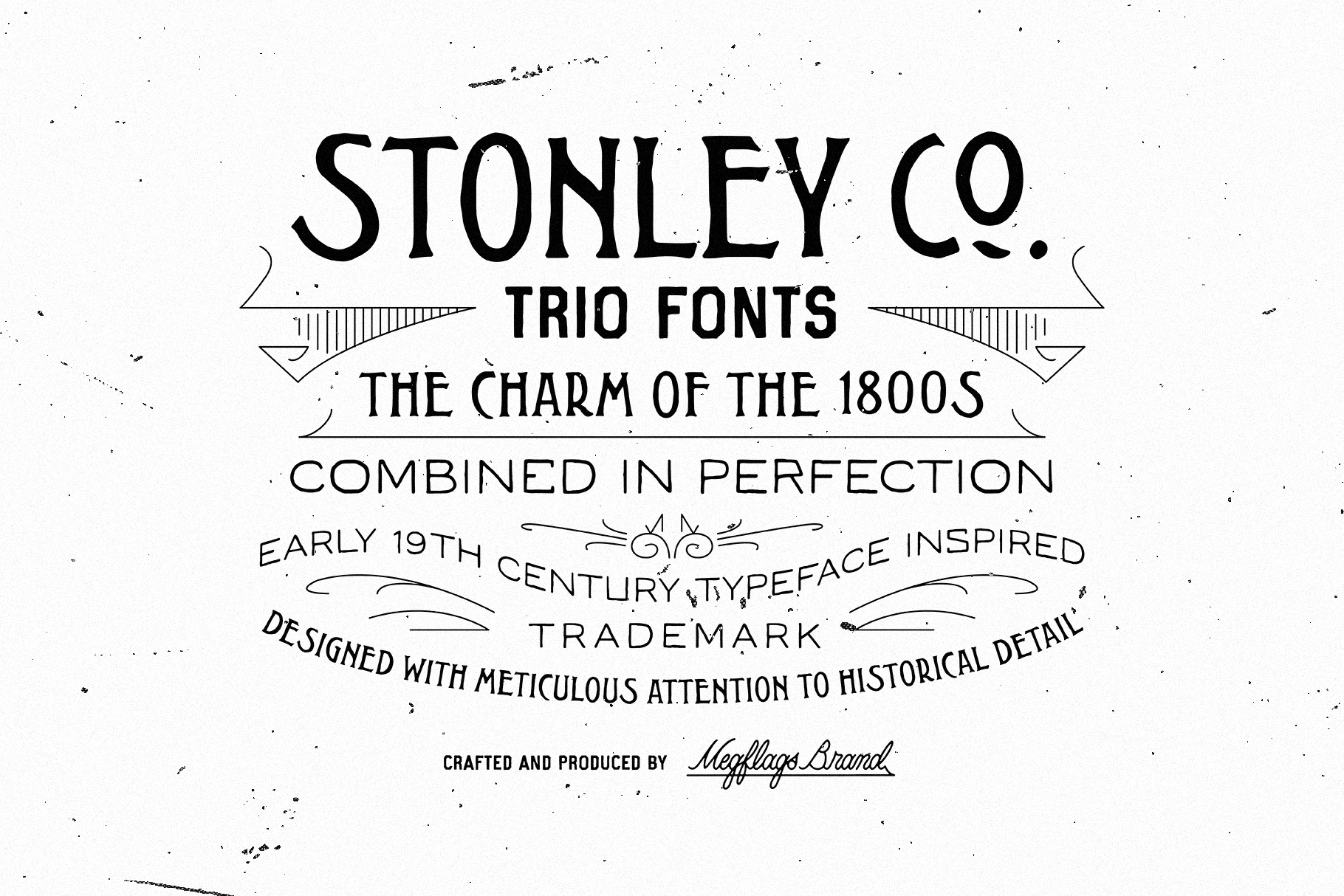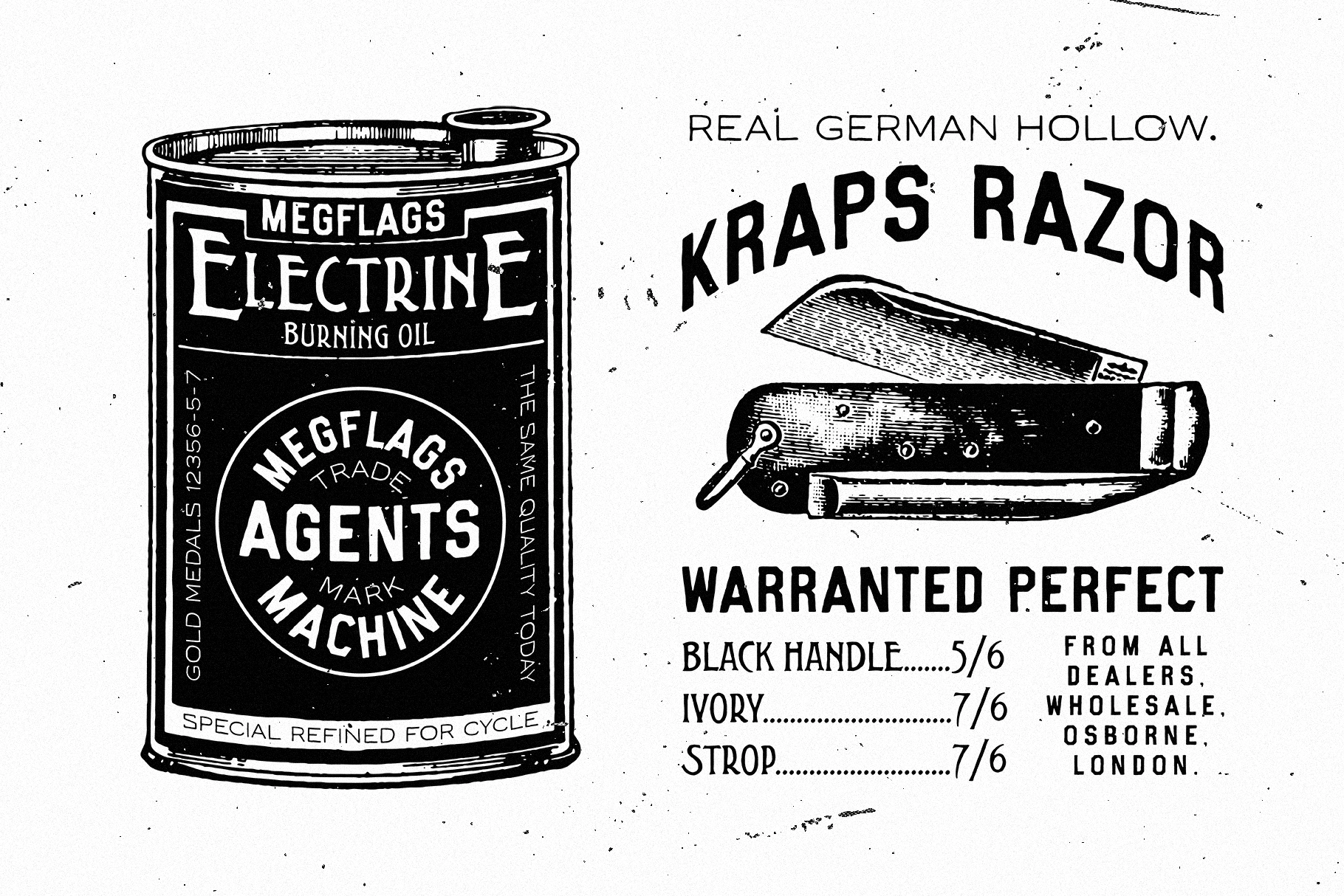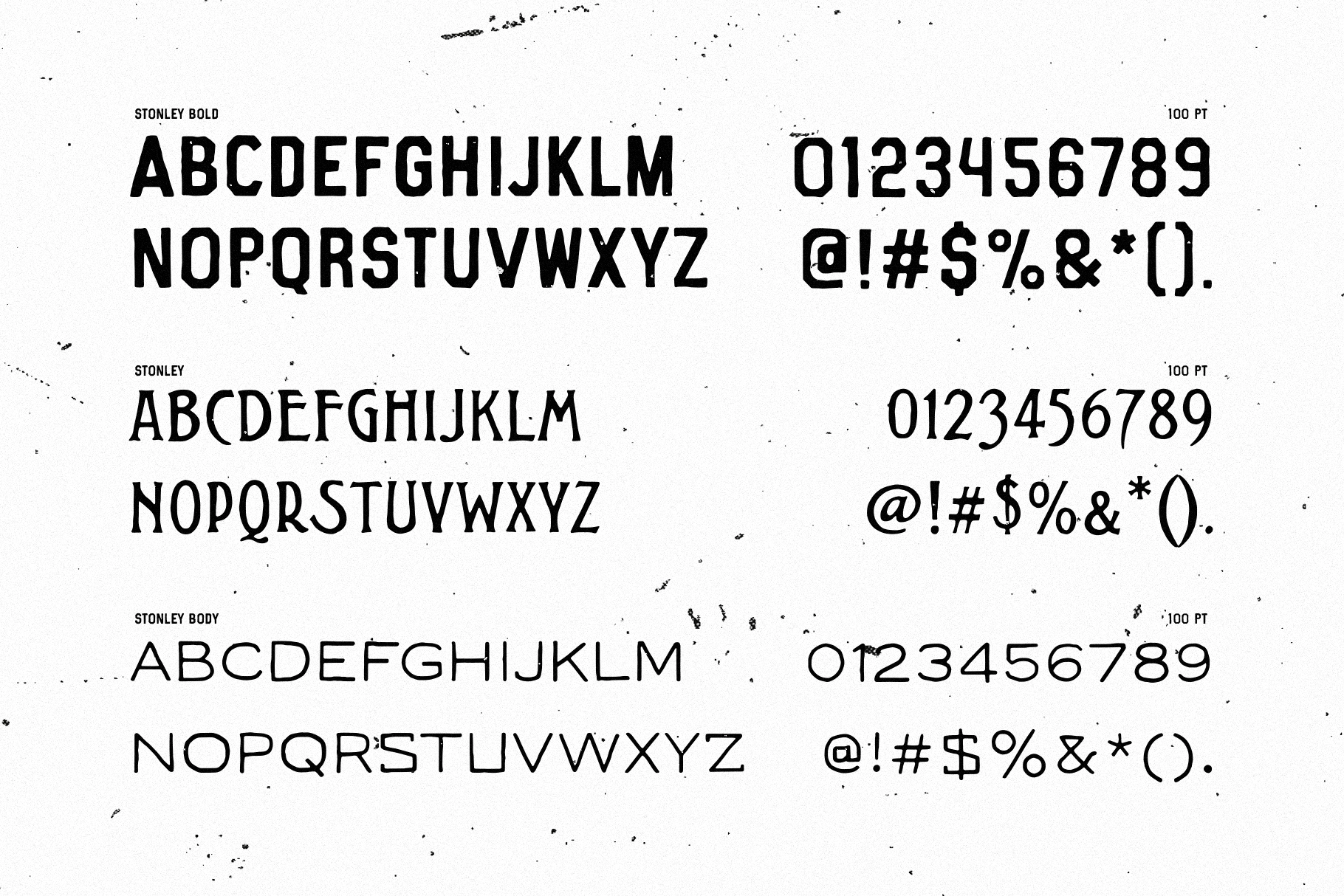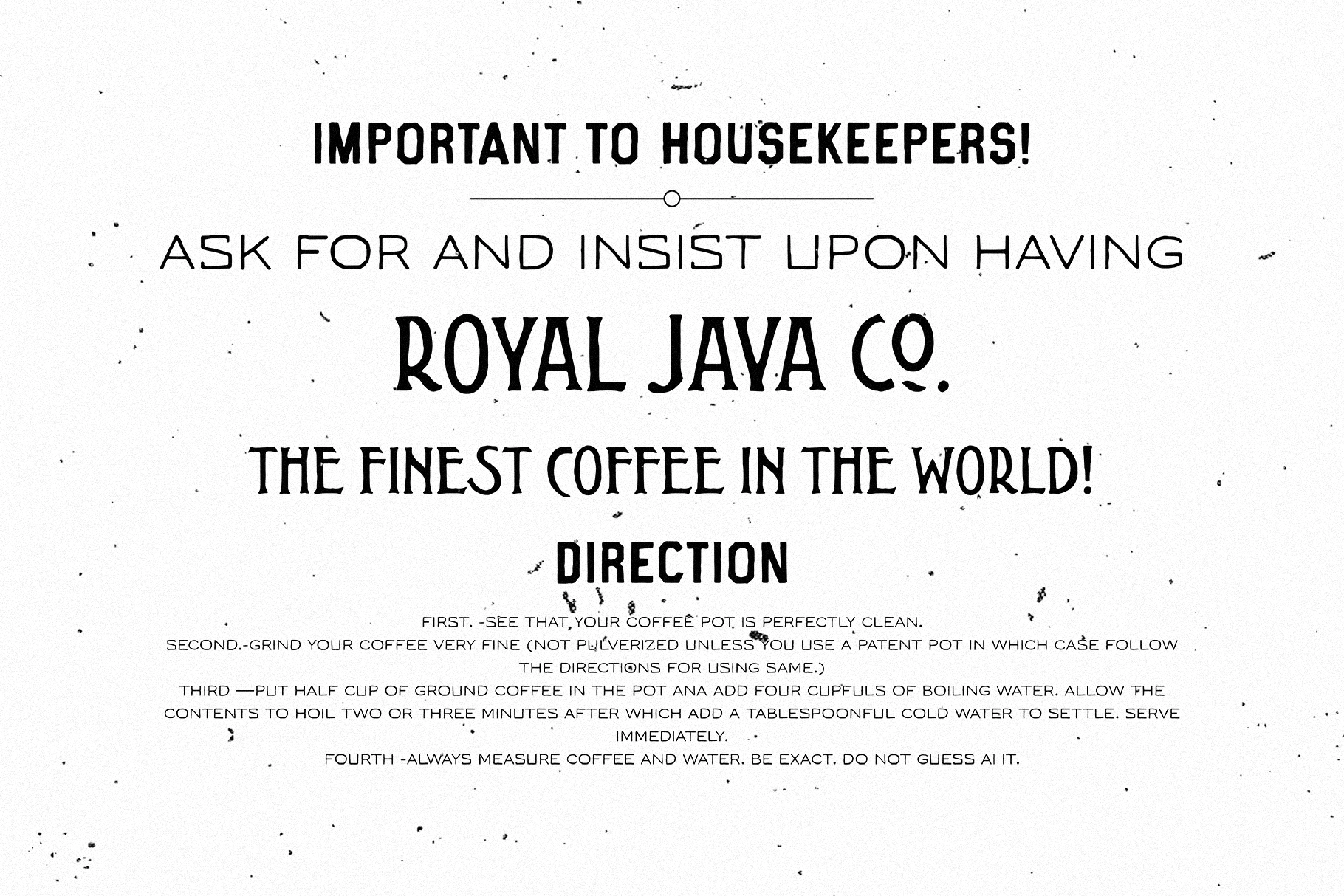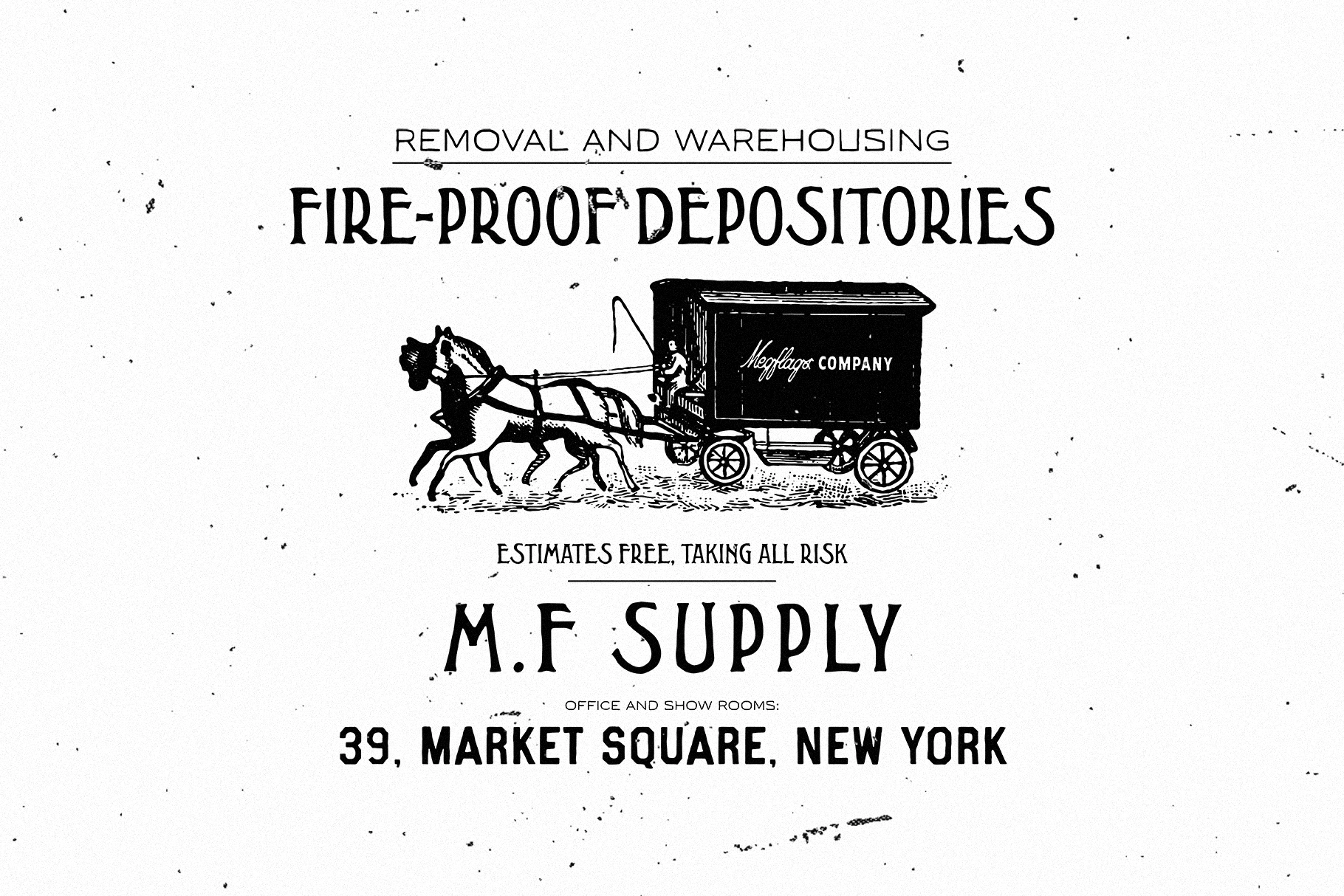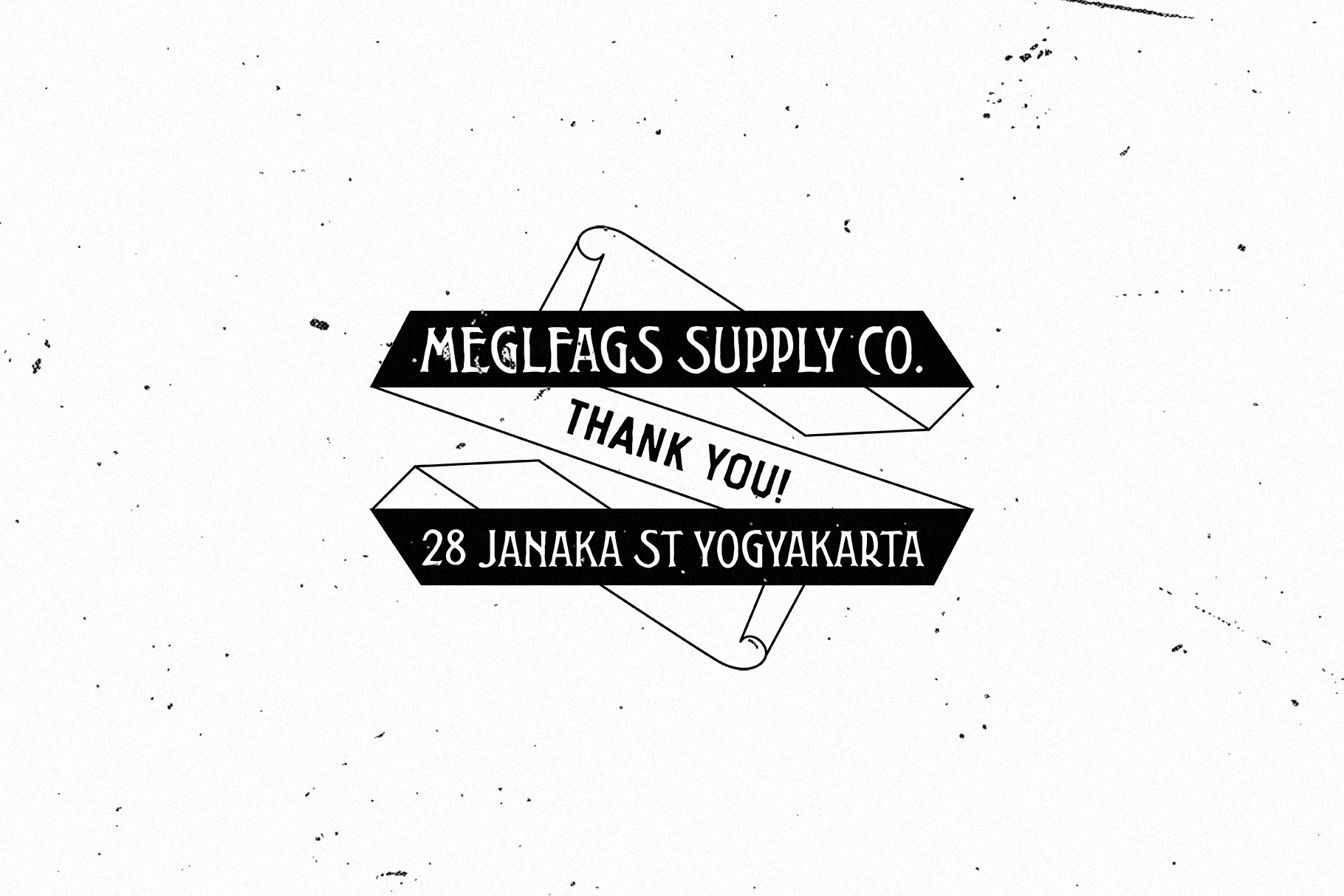
Stonley Fonts Trio
Stonley-Body
Stonley-Bold
Stonley
This one is a 1800s display voice born from job printers and woodtype shops. Stonley deliberately delivers broad verticals, clipped curves, and blunt spurs with an industrious stance, while minor quirks and press noise make the rhythm human. The tone matches a shopkeeper’s handshake — it's confident and credible on paper or paint.
The family carries a split character: showman and workhorse. A heavier cut anchors posters and crate marks with authority, an irregular hand-drawn style adds swagger to titles and seals, and a leaner companion reads cleanly on captions and pricing.
- Patent-style packaging — apothecary labels, liniment tins, soap wraps.
- Cutlery or tool branding — box lids, guarantee seals, maker’s marks
- Barbershop collateral — window lettering, price cards, appointment tickets.
- Whiskey and bitters — neck labels, duty stamps, crate stencils.
- General store graphics — receipt headers, shelf talkers, seed packets.
- Haberdashery and workwear — woven labels, size chips, care cards.
- Print shop goods — broadsides, specimen sheets, shop seals.
- Restaurants and cafés — chalkboard headings, menu dividers, coasters.
- Gallery and museum signage — exhibition titles, placards, wayfinding.
- E-commerce — hero headlines, collection banners, promo badges.
- all-caps alphabet with numerals and punctuation.